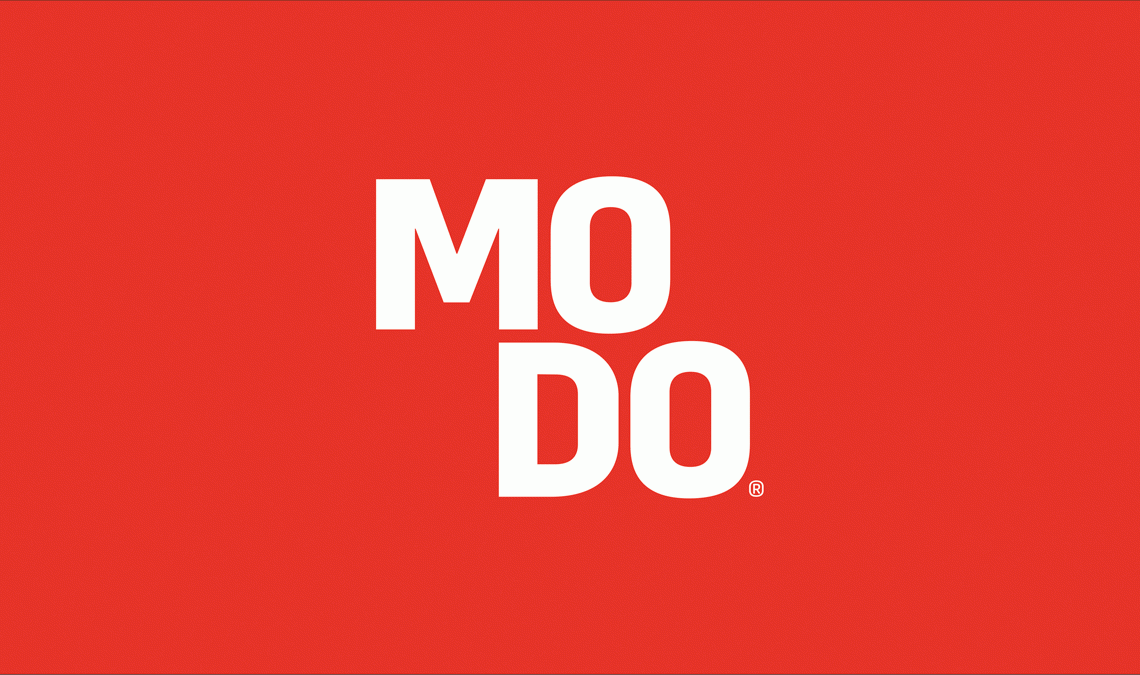
Protipo in Modo brand
Summary: Protipo in use in the Argentinian company Modo, a construction business invested in every detail, from customer support to their visual identity.
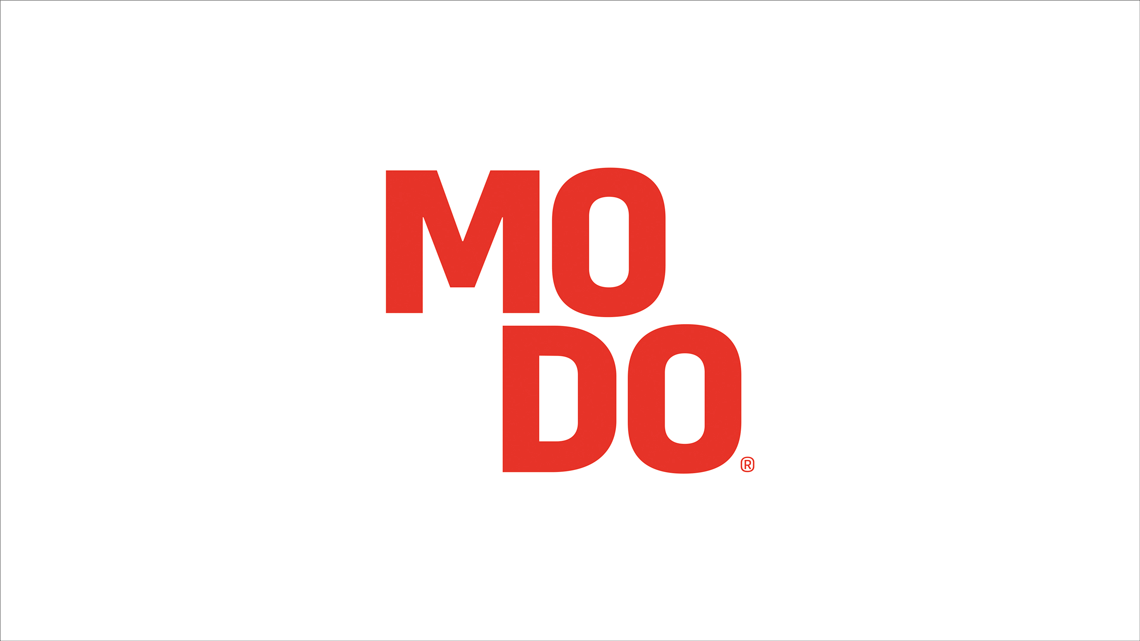
Modo Construcciones is an Argentinian construction company with the goal of long-term growth in an environmentally sustainable way. Even though they are not focused on the luxury market, they differentiate themselves from the average construction company in quality and personalised customer support.
The company has recently undergone a complete rebranding developed by the Argentinian design agency Tuco. The new brand system is heavily based on the font family Protipo. We talked with Hernán Rosas, founding partner at Tuco, who explained that, “Protipo is a strong geometric sans — versatile and simple, but designed with high precision. It was ideal for the brand needs.”
The brand has a dynamic typographic system organised in two blocks that can be easily adapted to different situations, as can be seen on their social media pages.